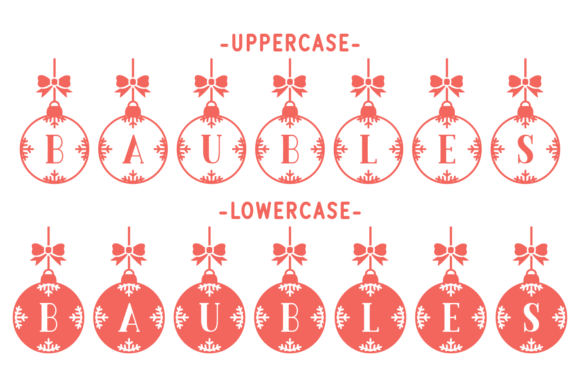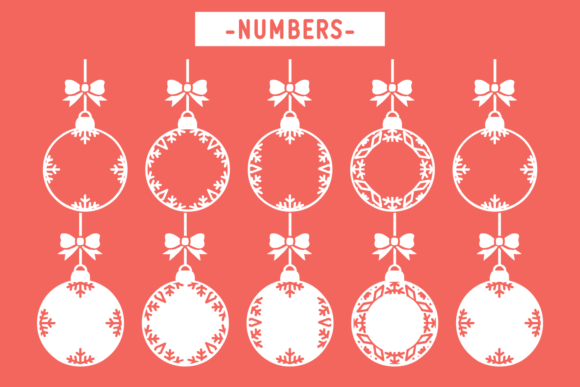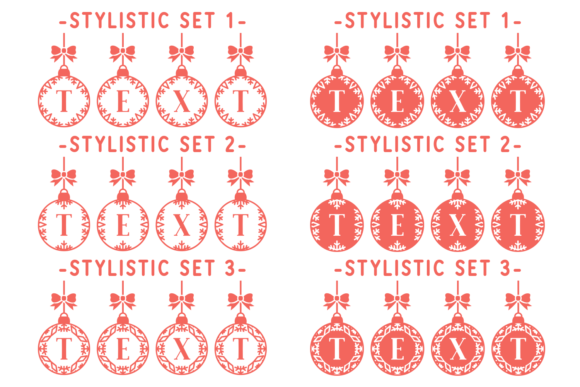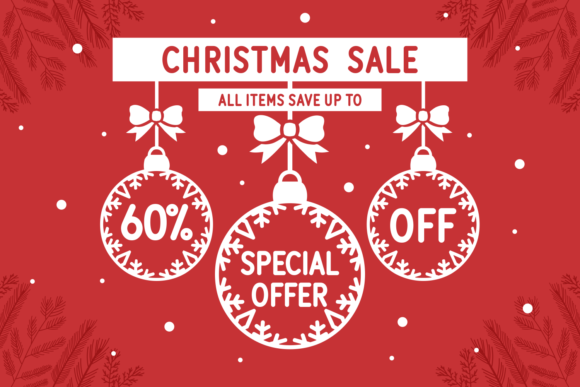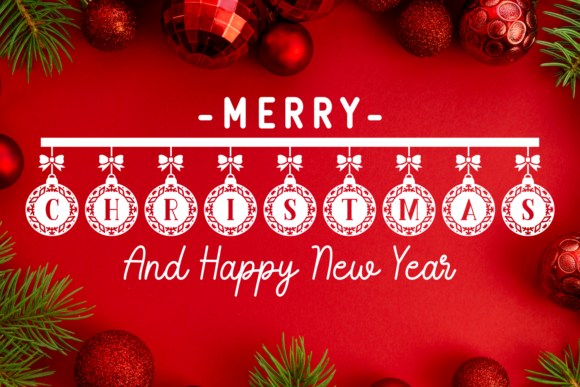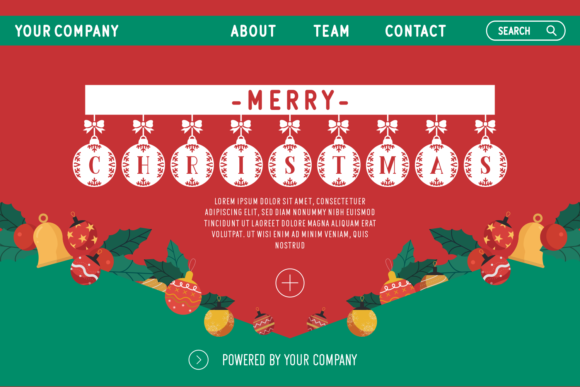
Introduction to Baubles Pack Font
As the snowflakes gently fall outside your window, you can’t help but feel a spark of creativity ignite within you. It’s the perfect time to start brainstorming ideas for your next winter-themed project, and we’ve got just the thing to get you started. Imagine adding a touch of festive charm to your Christmas gifts, home decor items, or marketing materials with the Baubles Pack Font.
This enchanting font is a designer’s dream come true, offering a wide range of glyphs and swashes that are easily accessible thanks to its PUA encoding. With the Baubles Pack Font, you can create high-quality designs that exude a sense of joy and wonder. Whether you’re working on a free download or a paid project, this font is sure to elevate your creative project to the next level.
Key Features of Baubles Pack Font
- Unique and creative font design, ideal for a variety of design projects, including invitations, greeting cards, and more.
- Includes a range of bauble-inspired shapes and designs, perfect for adding a touch of whimsy to any creative project.
Honest Review: Baubles Pack Font
As a designer, I’m always on the lookout for high-quality design resources to elevate my creative projects. The Baubles Pack Font caught my eye with its unique, playful style that’s perfect for adding a touch of whimsy to any design.
- ✨ High-quality vector design that’s crisp and clear, even at larger sizes
While the Baubles Pack Font is a great addition to any design library, there are a few limitations to consider:
- ⚠️ Limited character set may make it difficult to use for longer text-based projects
- ⚠️ Some of the individual elements may not be suitable for print design due to their delicate nature
Overall, I’m impressed with the Baubles Pack Font’s unique style and high-quality design. While it may have some limitations, it’s a great resource for designers looking to add some creativity and whimsy to their projects.
The Baubles Pack Font is ideal for various creative projects, including social media graphics, infographics, and marketing materials. Its transparent background and high-quality design make it a versatile design resource.